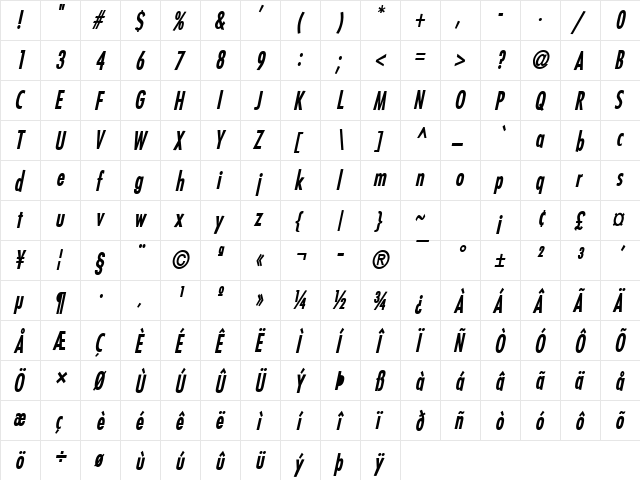
Fuji-Condensed Bold Italic Font Preview
Design Context for Fuji-Condensed Typeface
Fuji-Condensed offers clean, dependable letterforms without strong stylistic allegiance, making it a practical choice for designers who need flexibility. Its italic angle brings a sense of urgency and motion to the letterforms. Its bold stroke weight gives it real presence on the page. The condensed width makes it efficient for tight spaces without sacrificing legibility.
Pro Tip: Try Fuji-Condensed for annotation and caption copy alongside an upright companion — the contrast in angle creates a dynamic but ordered typographic system.